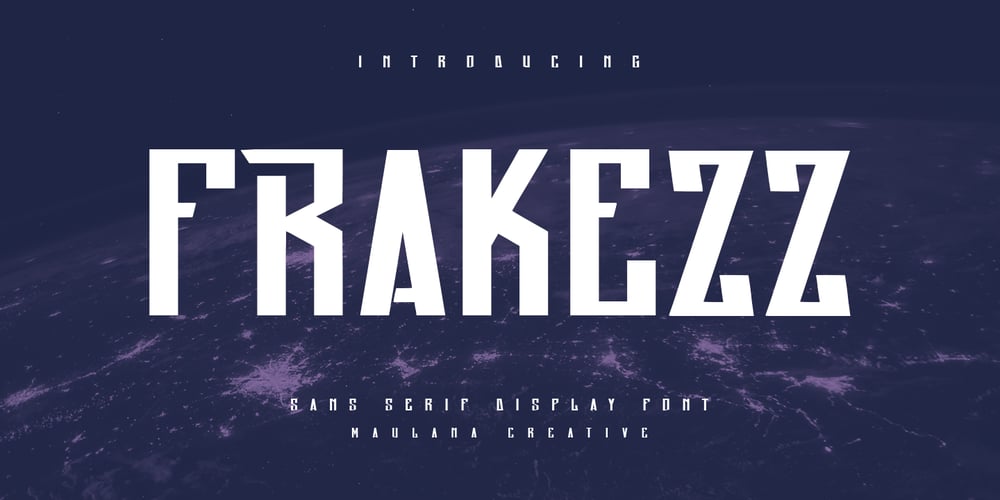
MC Frakezz Font Family was designed by Gilang Maulana and published by Maulana Creative. MC Frakezz contains 1 styles and family package options. Frakezz sans serif font. Heavy stroke, fun character with a bit of ligatures. To give you an extra creative work. Frakezz sans serif font support multilingual more than 100+ language. This font is good for logo design, Social media, Movie Titles, Books Titles, a short text even a long text letter and good for your secondary text font with script or serif. Make a stunning work with Frakezz sans serif font.